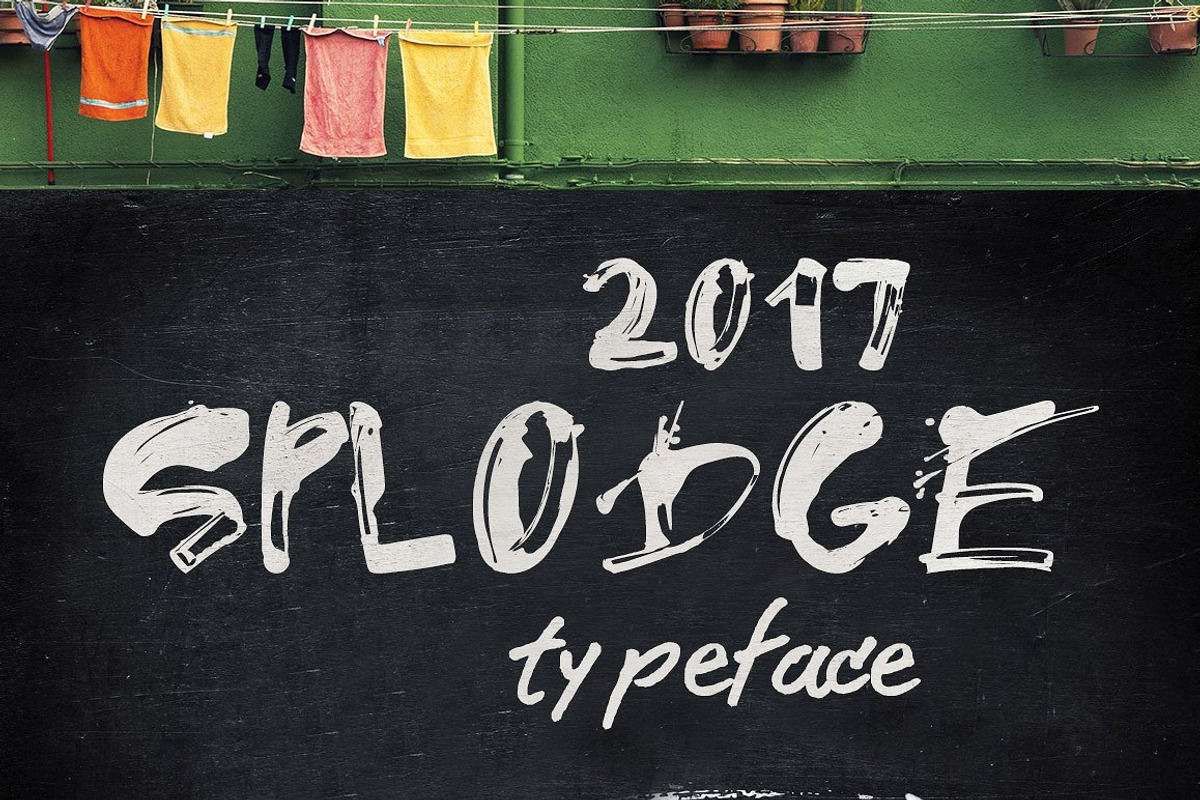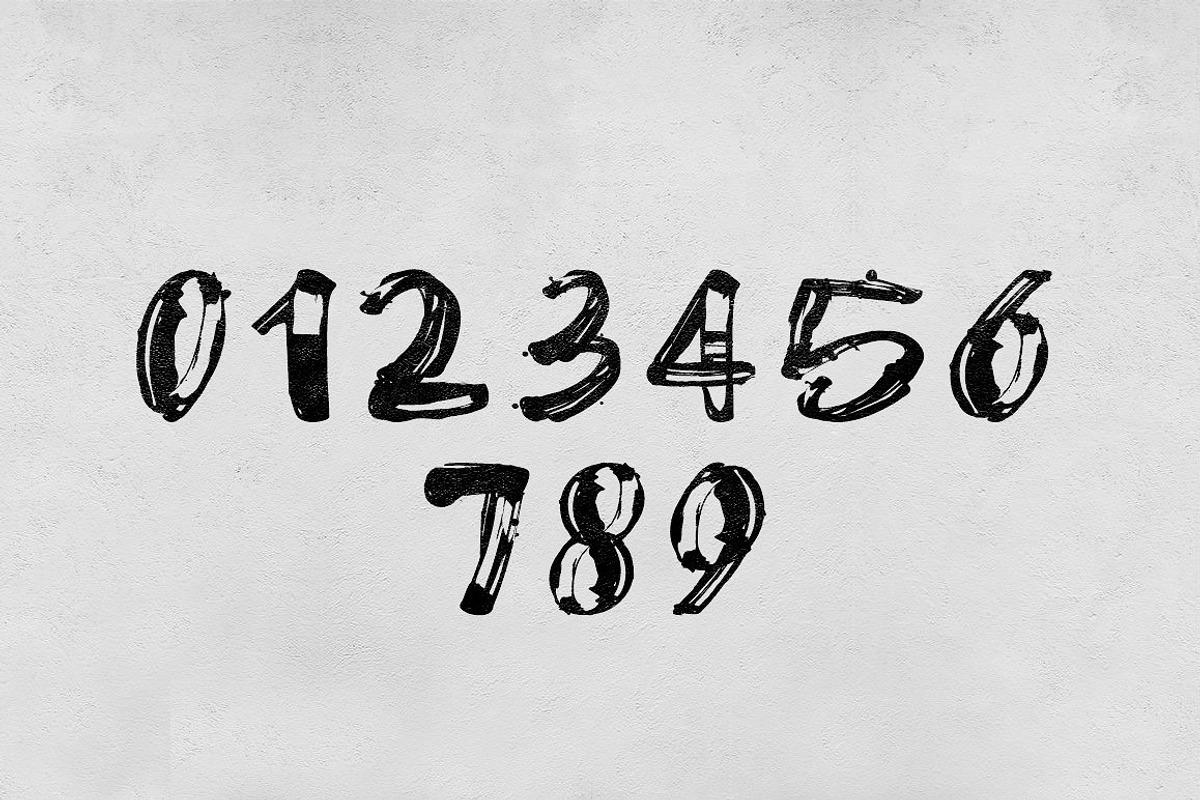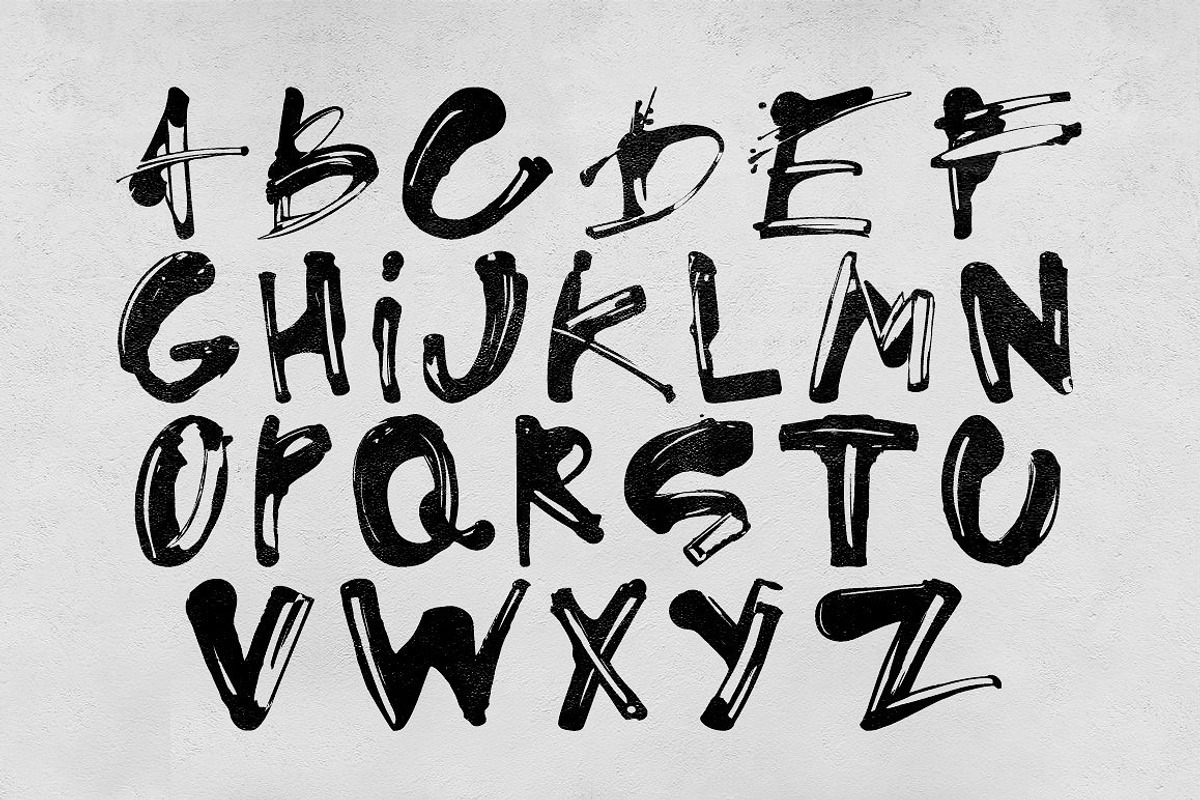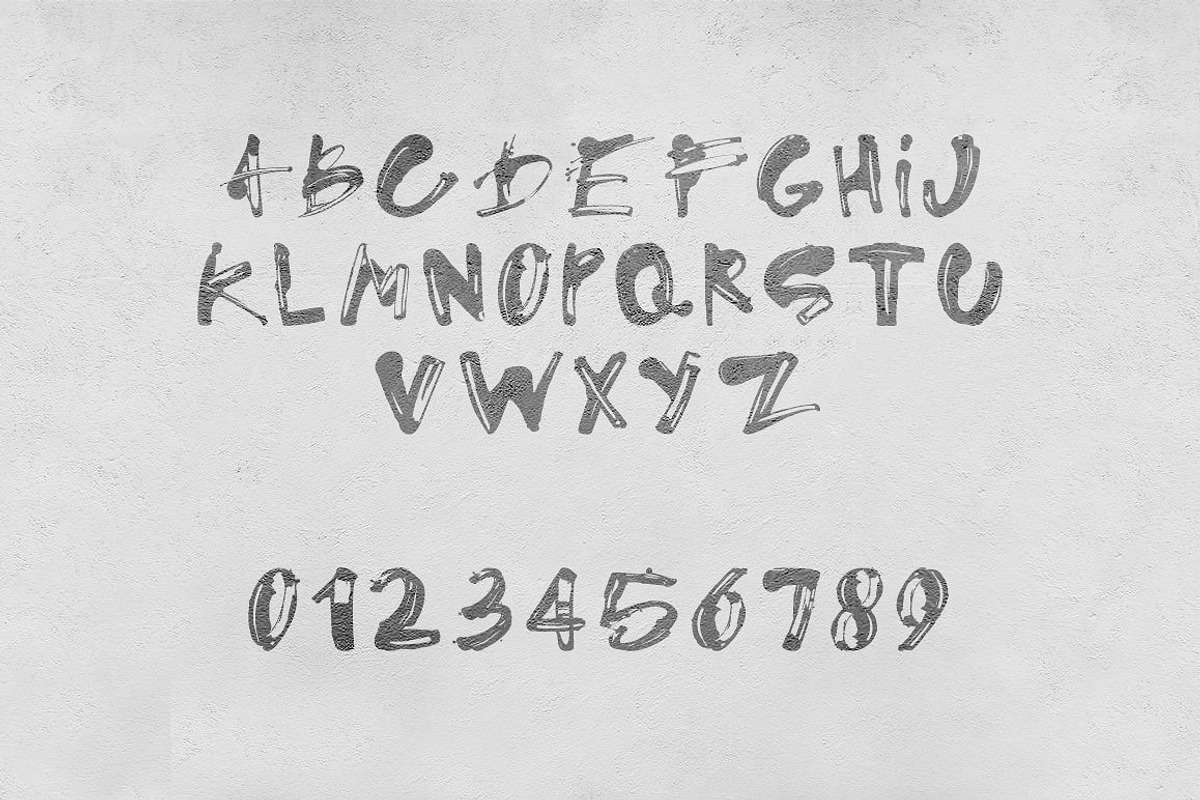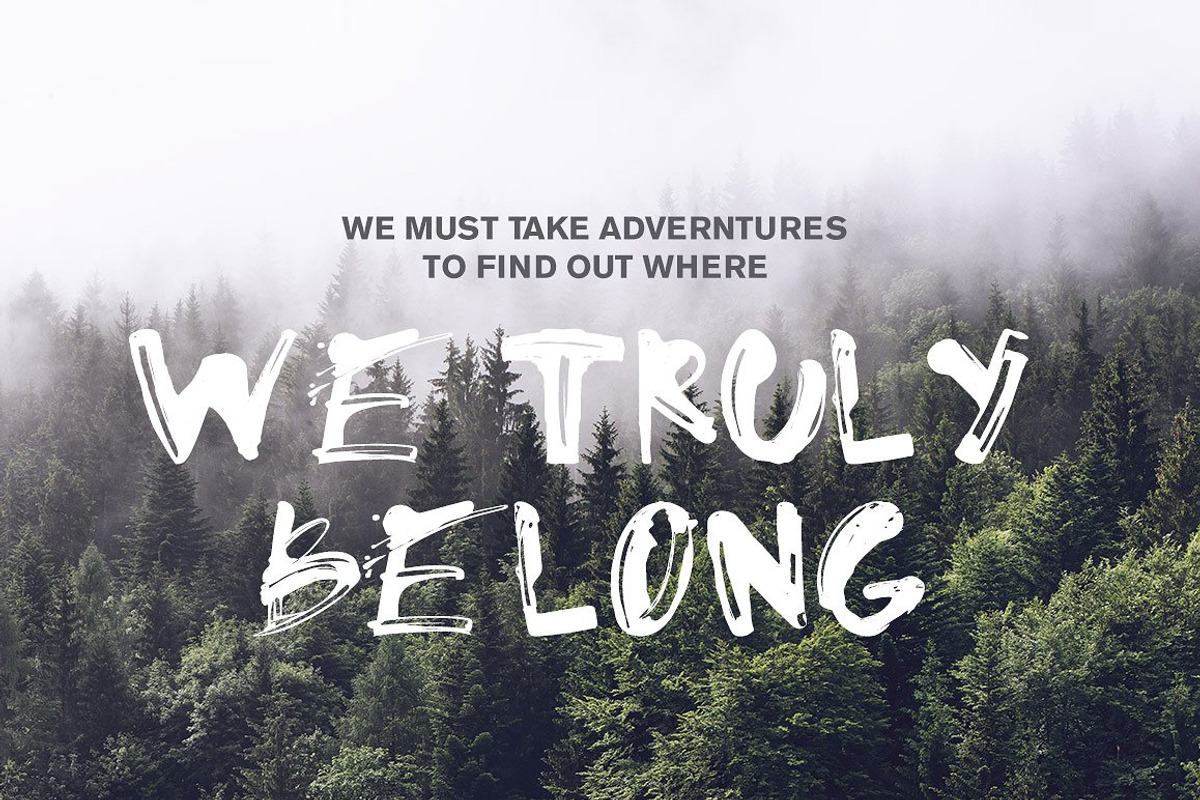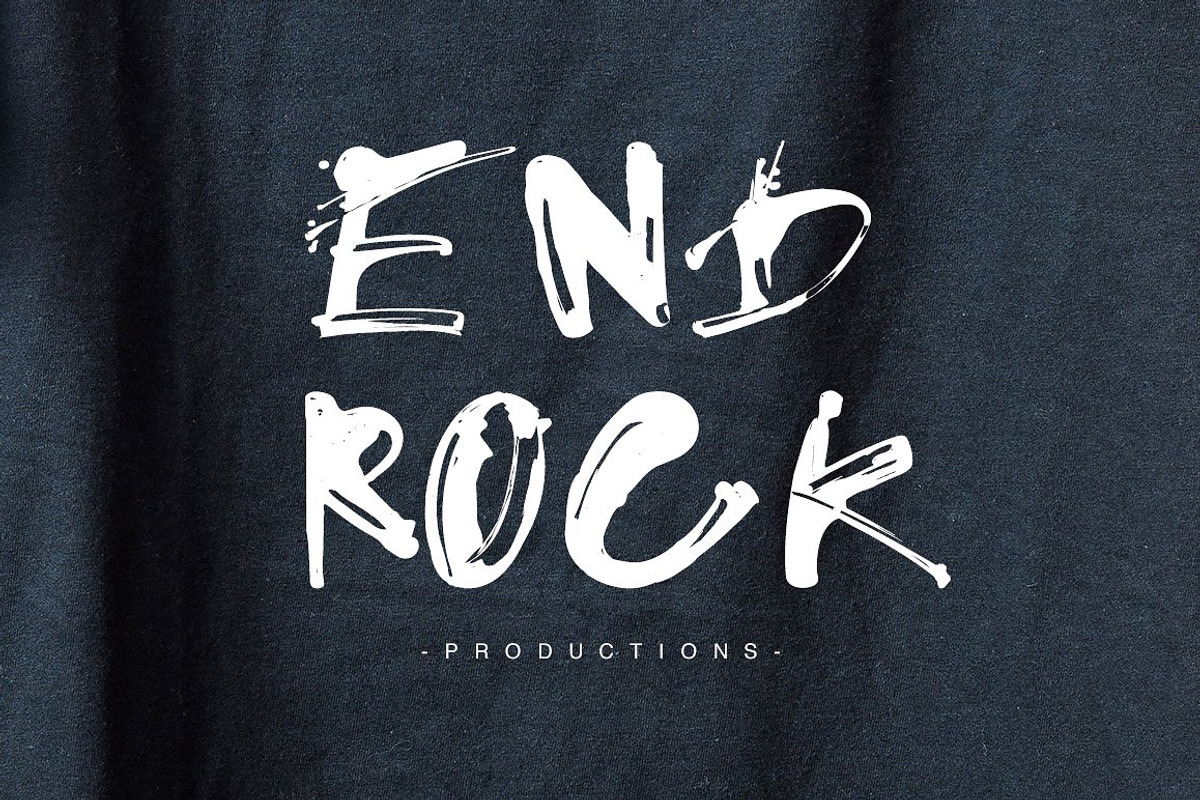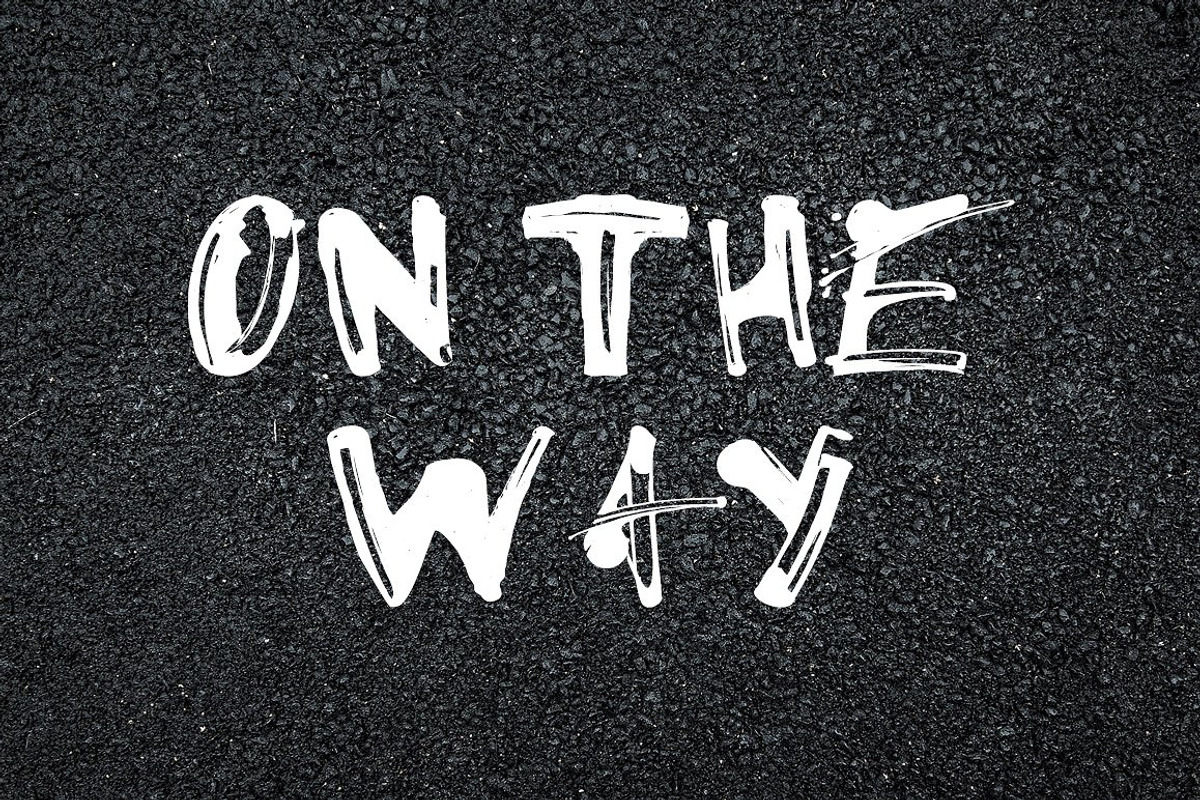
Splodge Typeface Script Fonts
Splodge Typeface by DuoFankaar is a font selected for branding, posters, packaging, typography.
Splodge Typeface Script Fonts by DuoFankaar fits naturally into Branding, posters, packaging, typography.